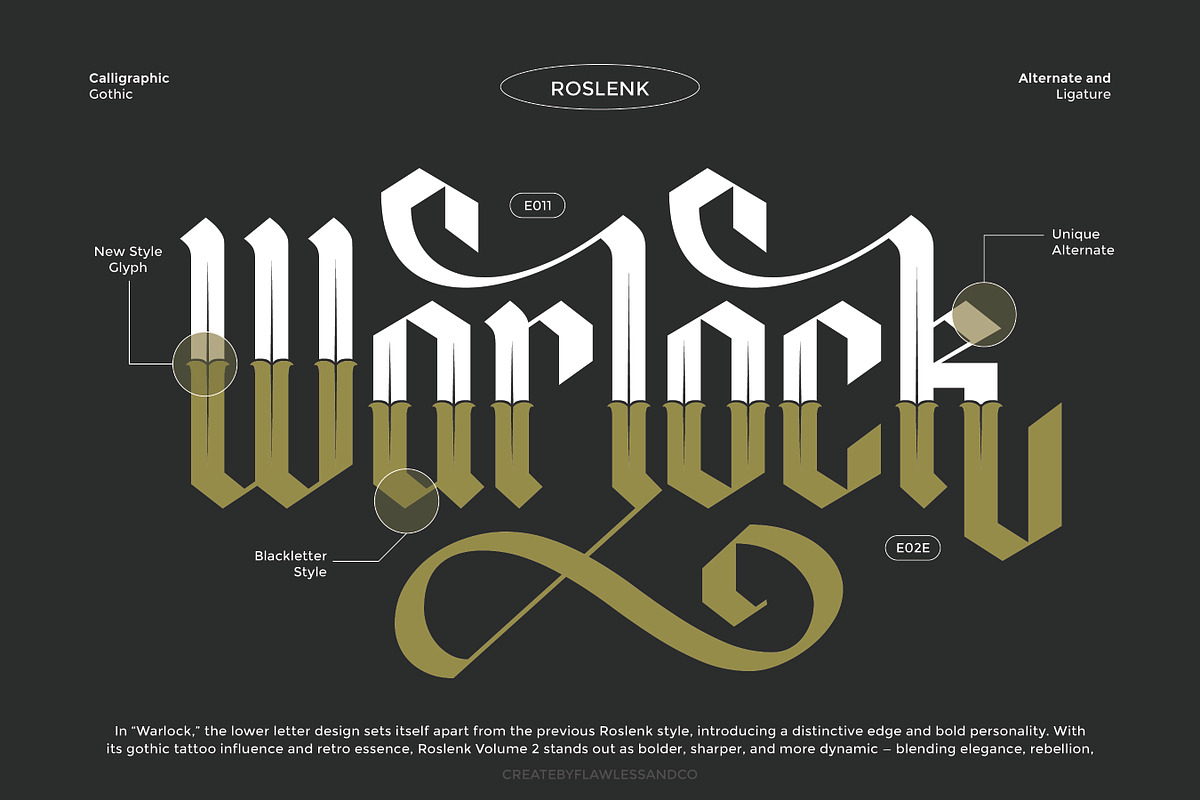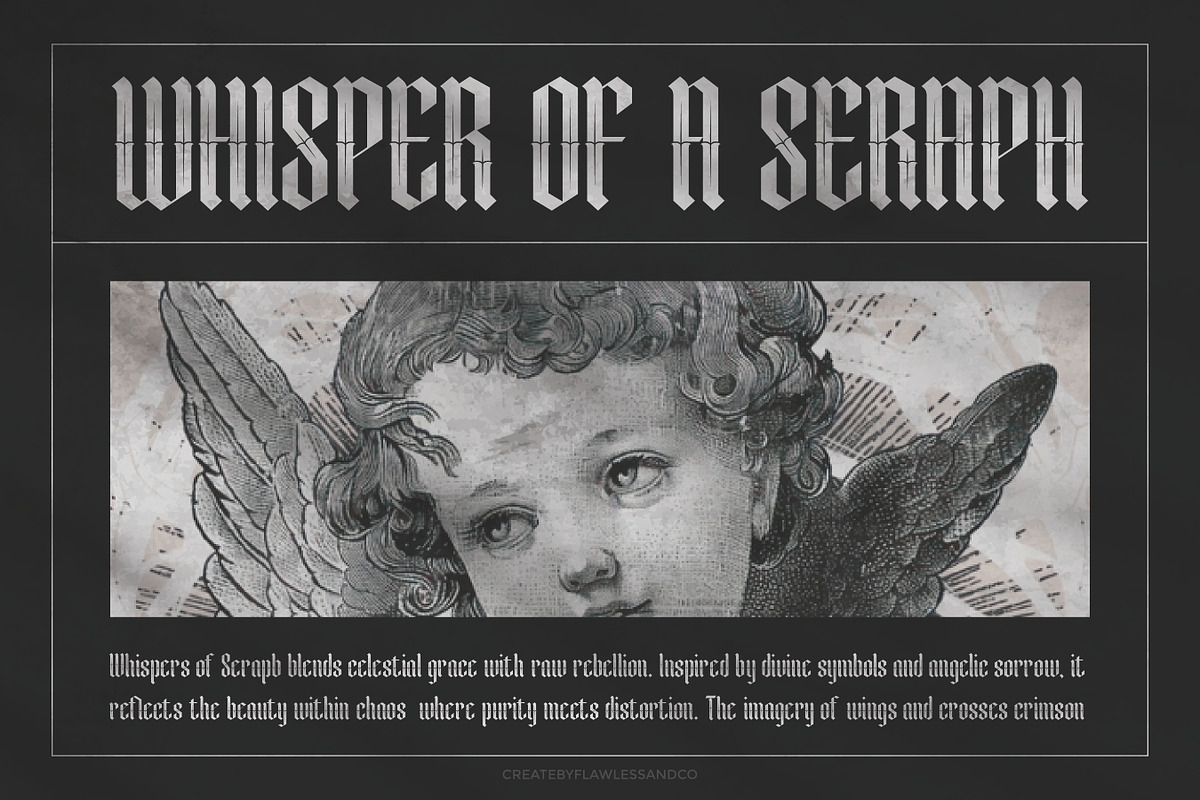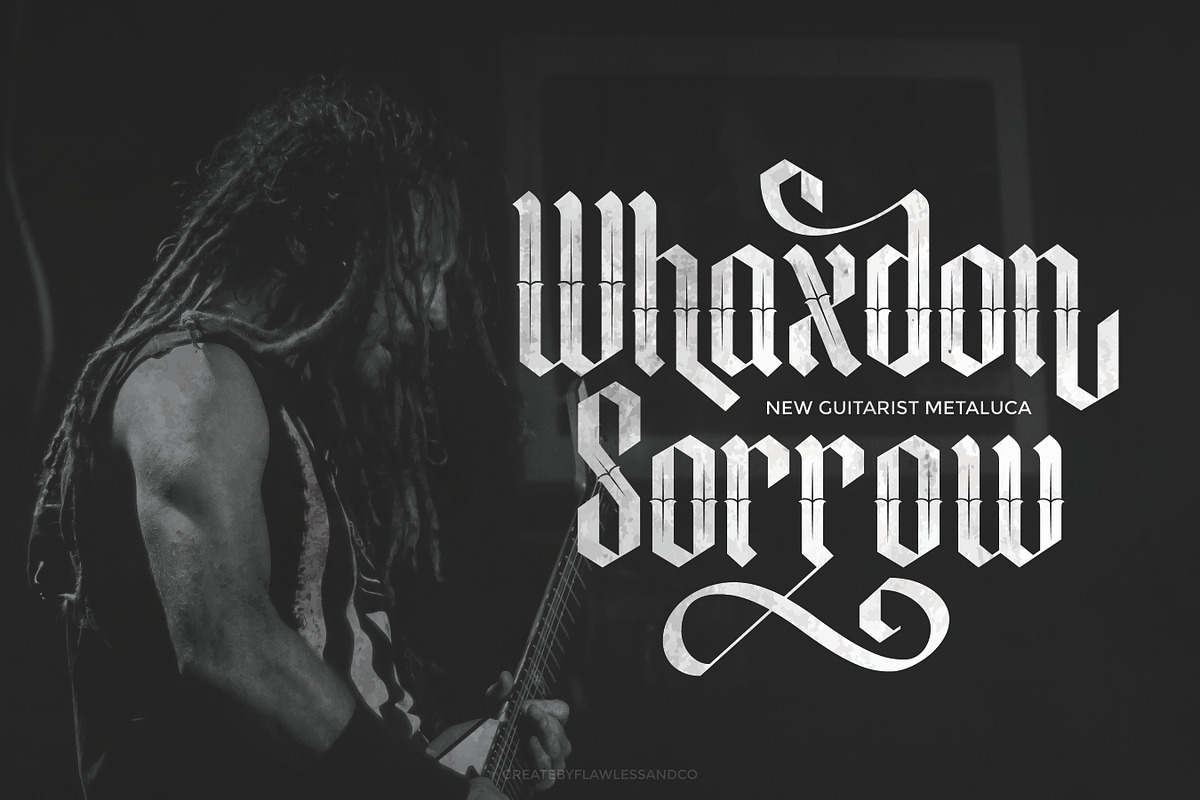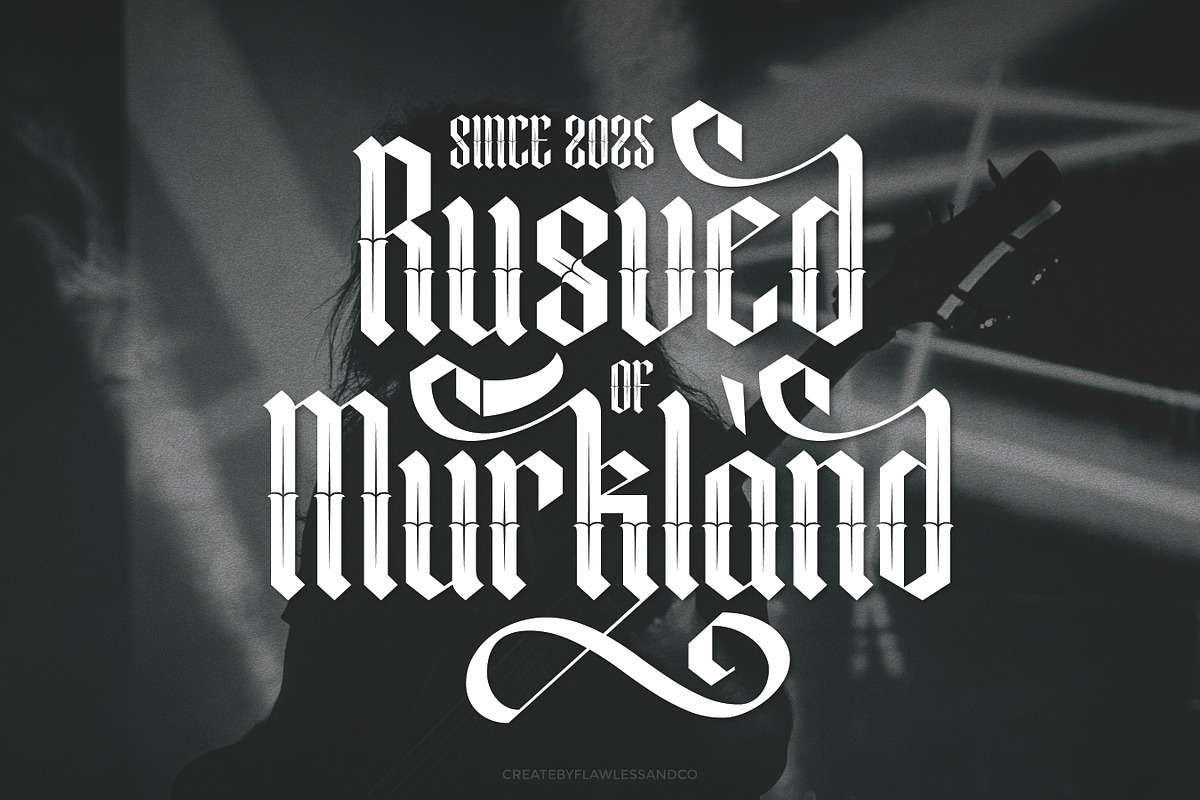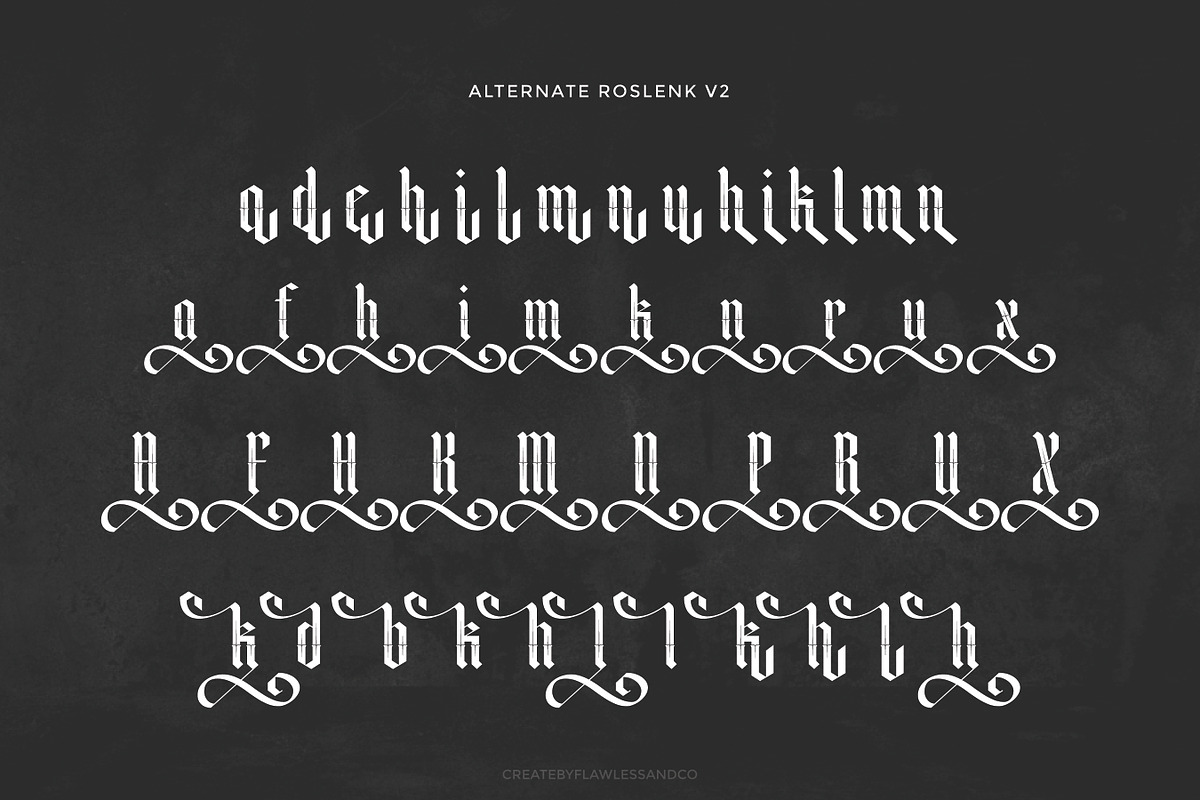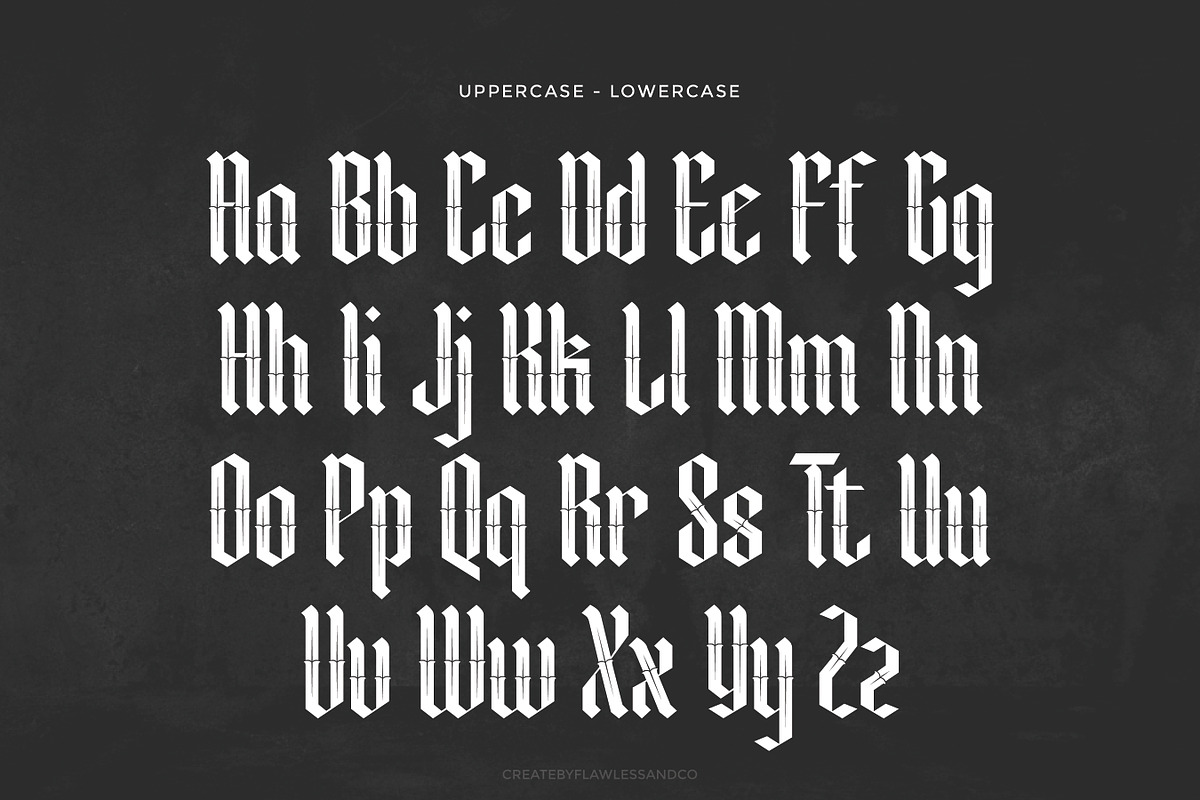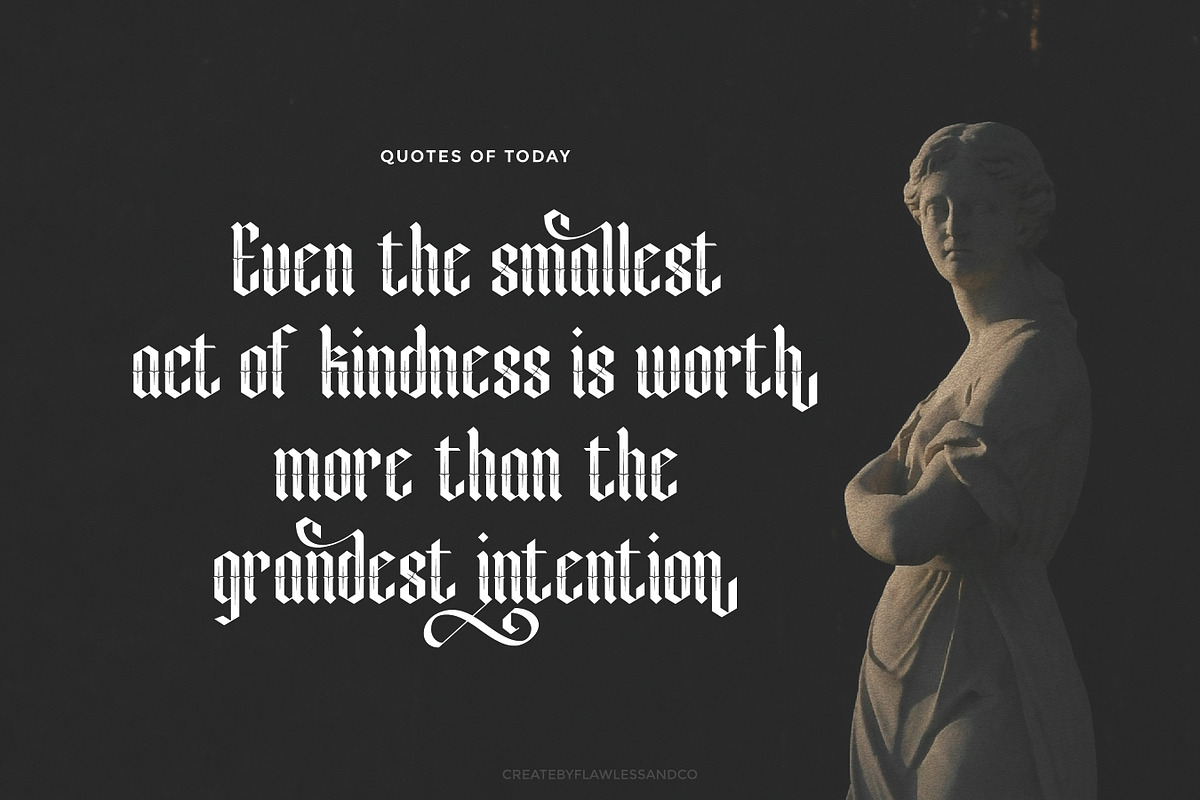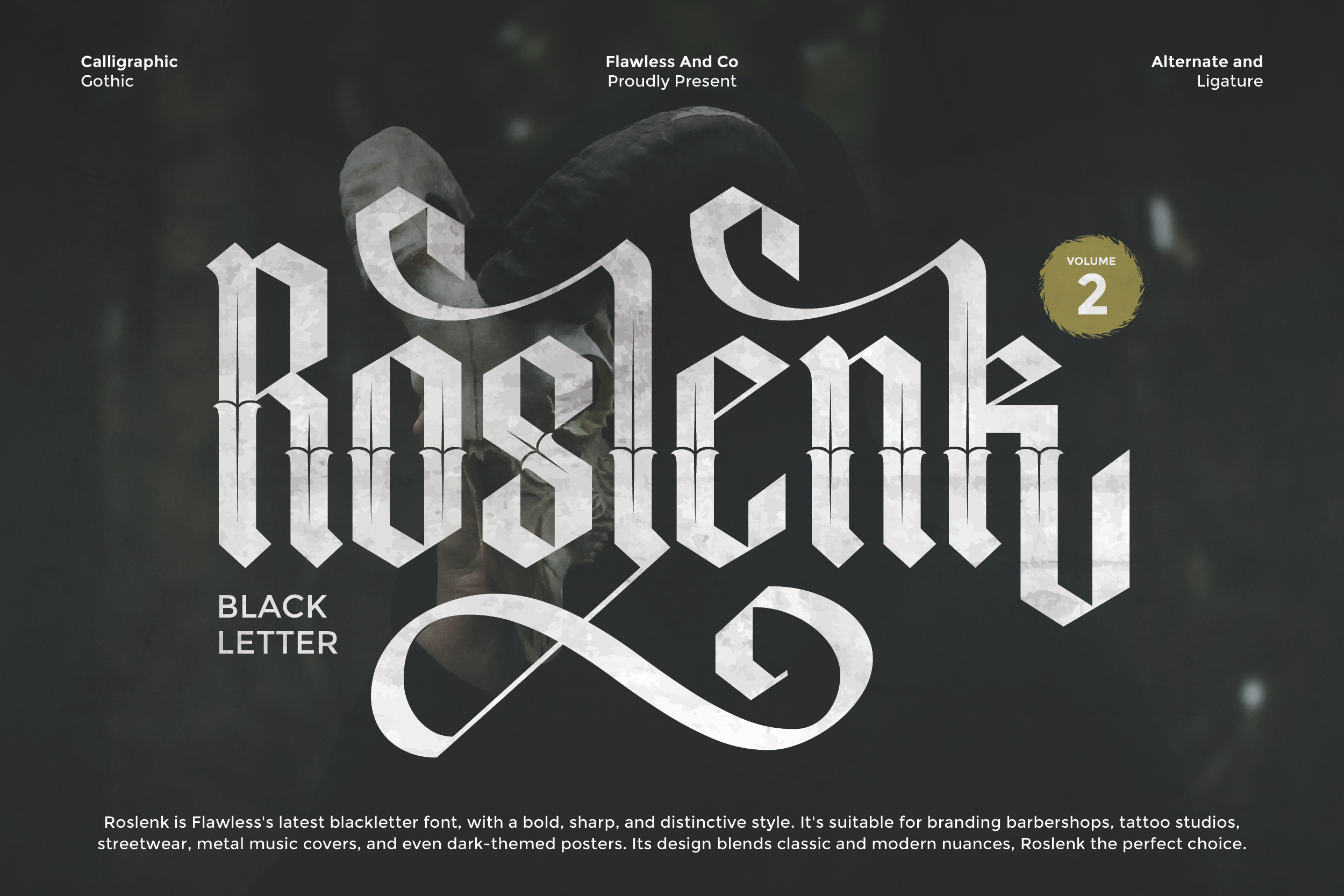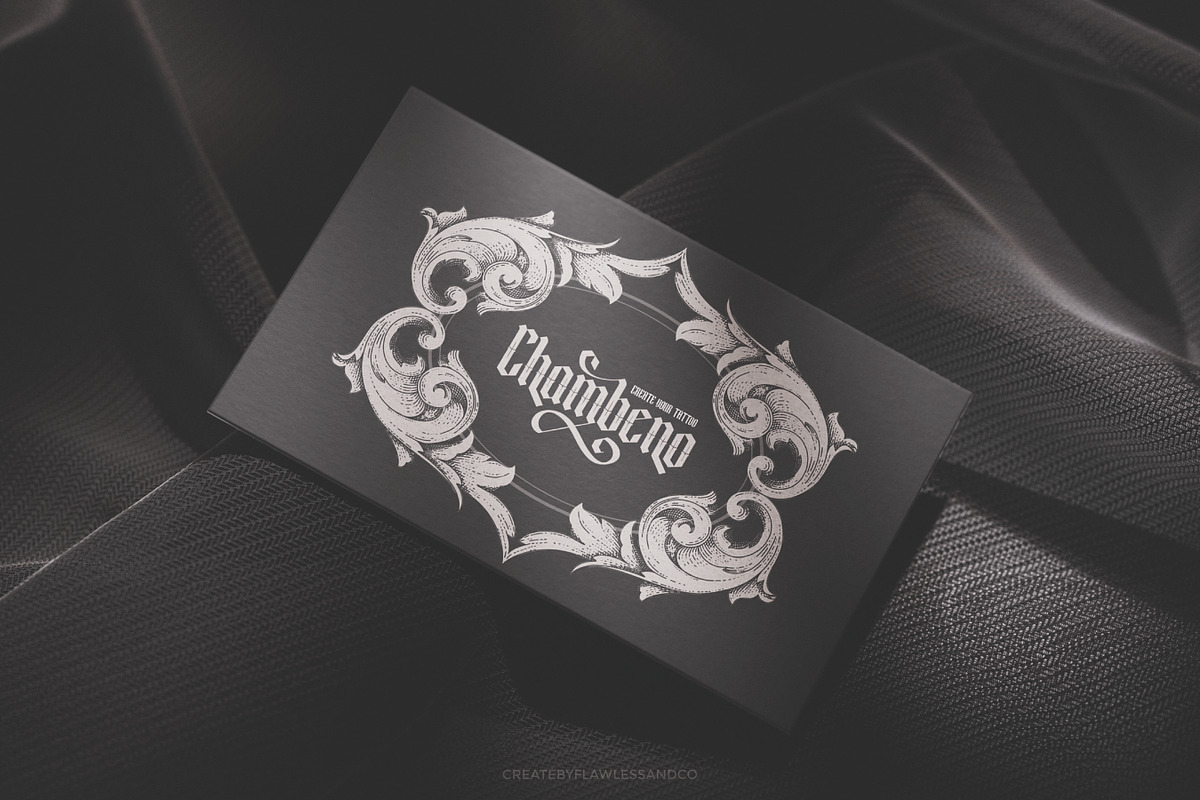
Roslenk Vol2 – Blackletter Font
Roslenk Vol2 is a bold blackletter font with a sharp, striking, and timeless character. Its design captures the essence of gothic calligraphy while blending in a modern touch, making it stand out in every project. Perfectly suited for branding barbershops, tattoo studios, streetwear fashion, heavy metal music covers, dark-themed posters, and more — Roslenk delivers both power and elegance in one package. With its distinctive curves, strong lines, and dramatic flair, Roslenk V2 is the ideal choice for designers seeking a font that leaves a bold impression.
Who Should Use Roslenk Vol2?
Roslenk is designed for creatives, brands, and designers who want to showcase boldness, tradition, and a powerful visual presence. It’s the perfect choice for:
- Tattoo artists and studios aiming for authentic gothic-inspired designs
- Barbershops and lifestyle brands looking for strong, masculine typography
- Music bands and album cover designers, especially in rock, punk, or metal genres
- Fashion and streetwear labels that want an edgy and distinctive identity
- Poster and headline creators who need impactful, dramatic lettering
A Must-Have Font for “Brand and Logo” Creators and Designers
Roslenk Vol2 is more than just a gothic-style font — it’s a bold design asset that brings intensity, character, and edge to every project. For creators and designers working on brands and logos, Roslenk delivers a perfect blend of tradition and modern flair. Its unique letterforms make every design stand out, giving your work the dramatic presence it deserves.
Why Choose Roslenk Vol2 for “Brand and Logo” Projects?
Roslenk Vol2 is designed to give your brand identity a powerful and unforgettable look. With its gothic-inspired yet modernized style, this font communicates strength, elegance, and creativity all at once. Whether you’re designing logos, branding elements, or promotional materials, Roslenk ensures your project stands out with a bold and professional impact. It’s the ideal choice for designers who want their work to leave a lasting impression.
Suitable For
- Brand identities and modern logo design
- Clothing labels, merchandise, and fashion branding
- Music, gaming, and entertainment projects
- Posters, flyers, and bold editorial layouts
- Packaging and product design with a unique edge
- Social media graphics and creative marketing materials